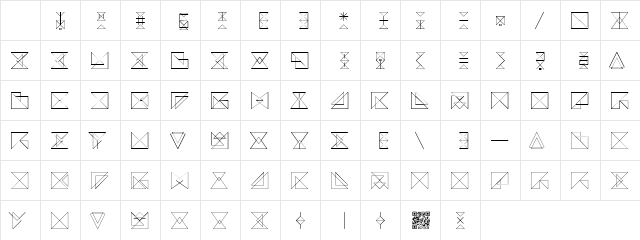
Complete REMARK Regular glyph index. Displaying only characters natively supported by REMARK Regular font.
REMARK is a composed and adaptable typeface that performs quietly and consistently across a wide range of design contexts.